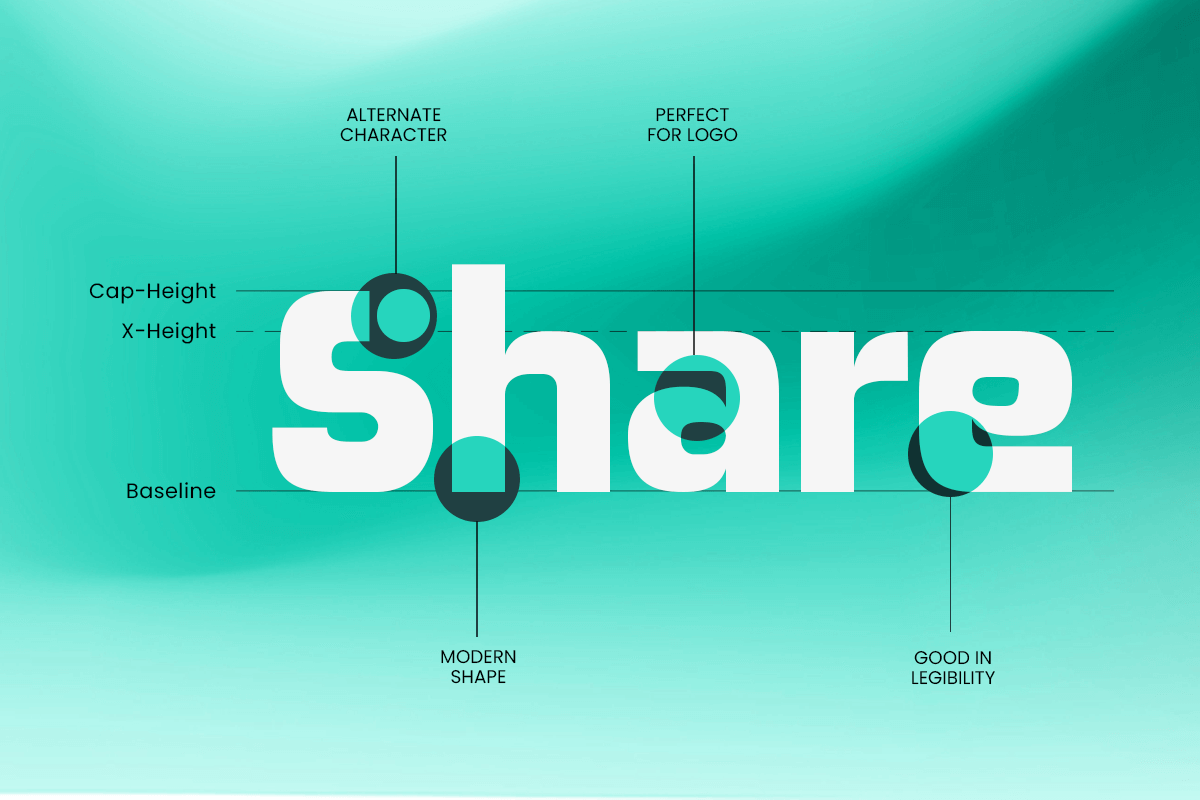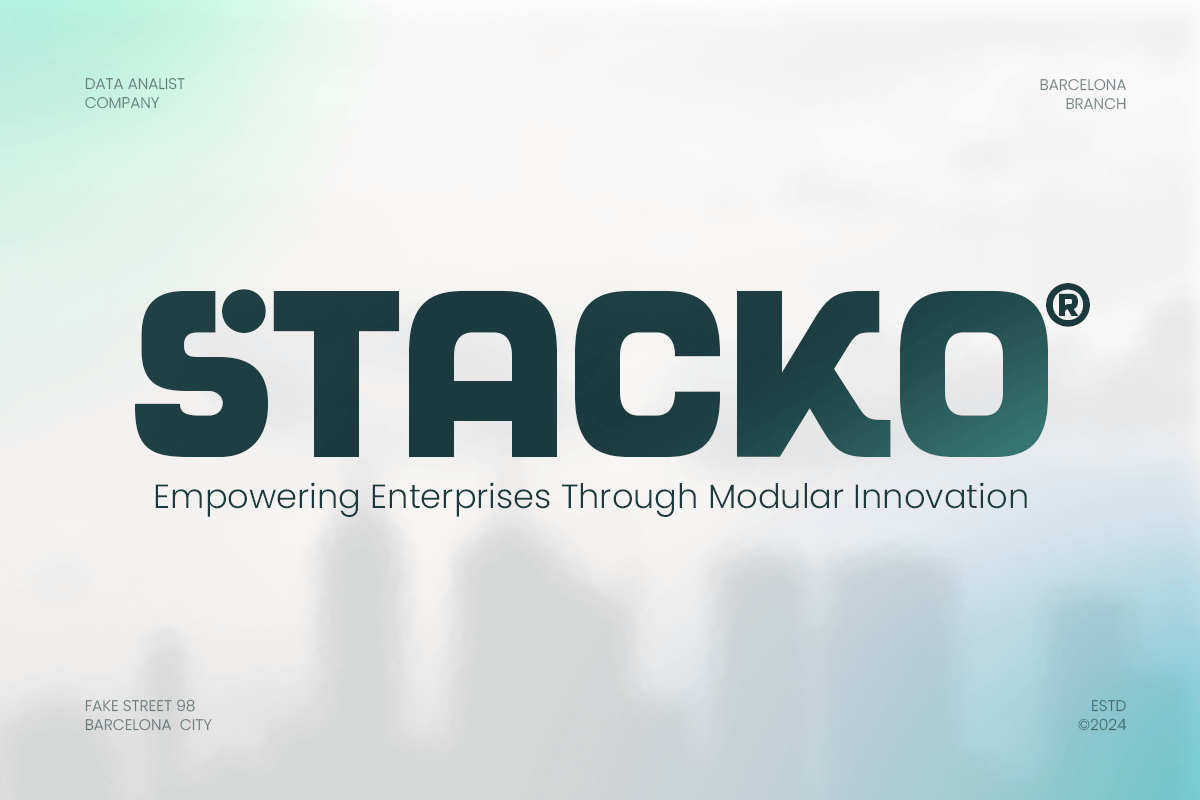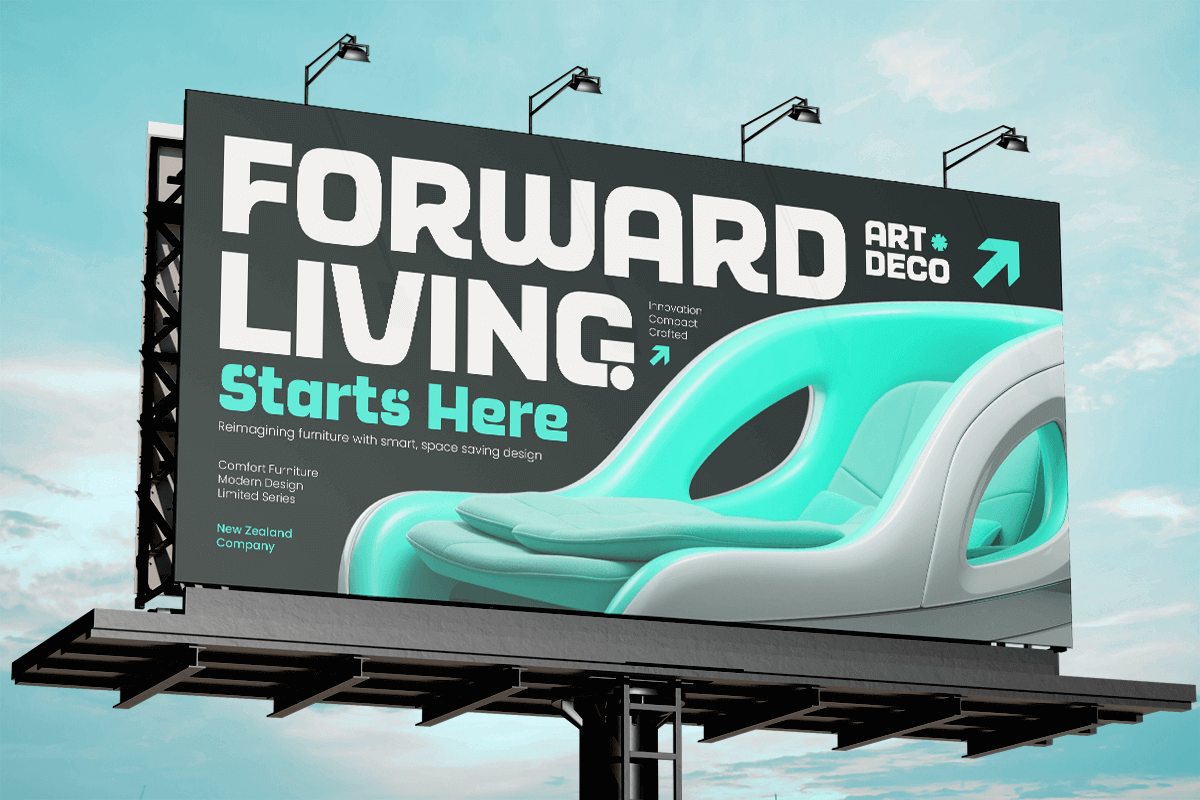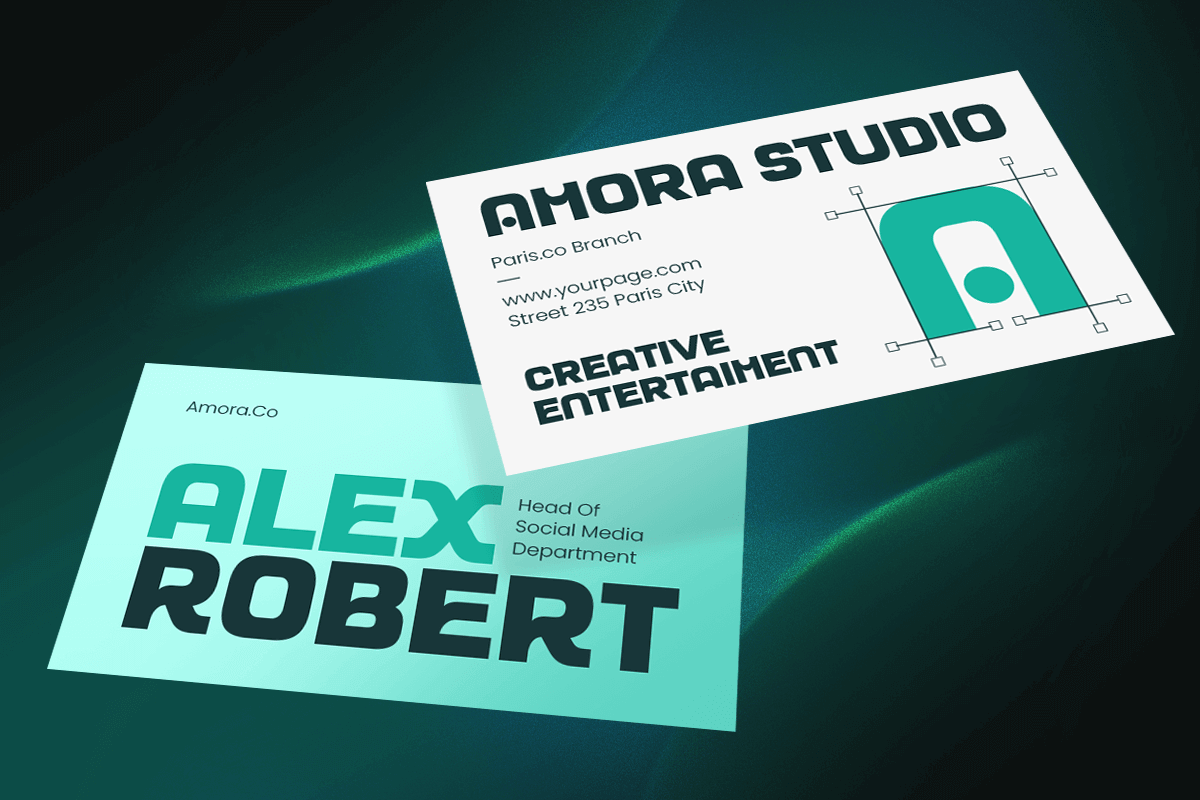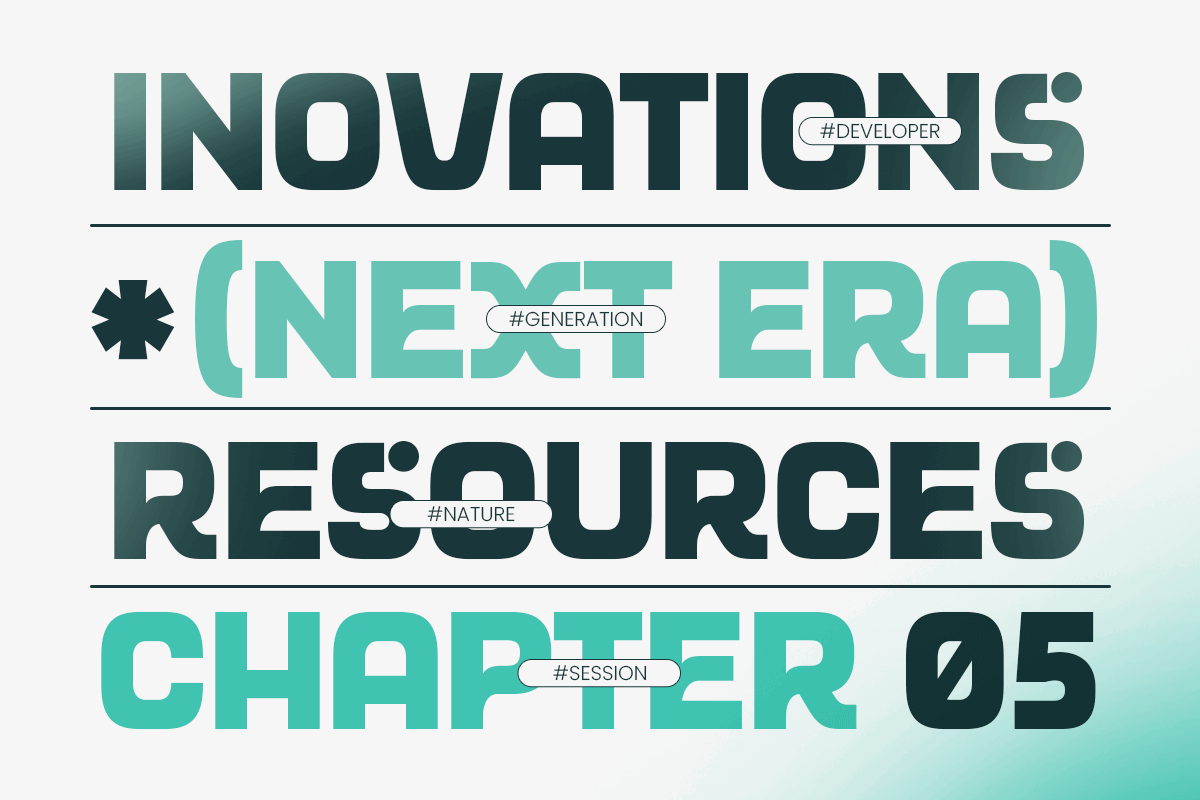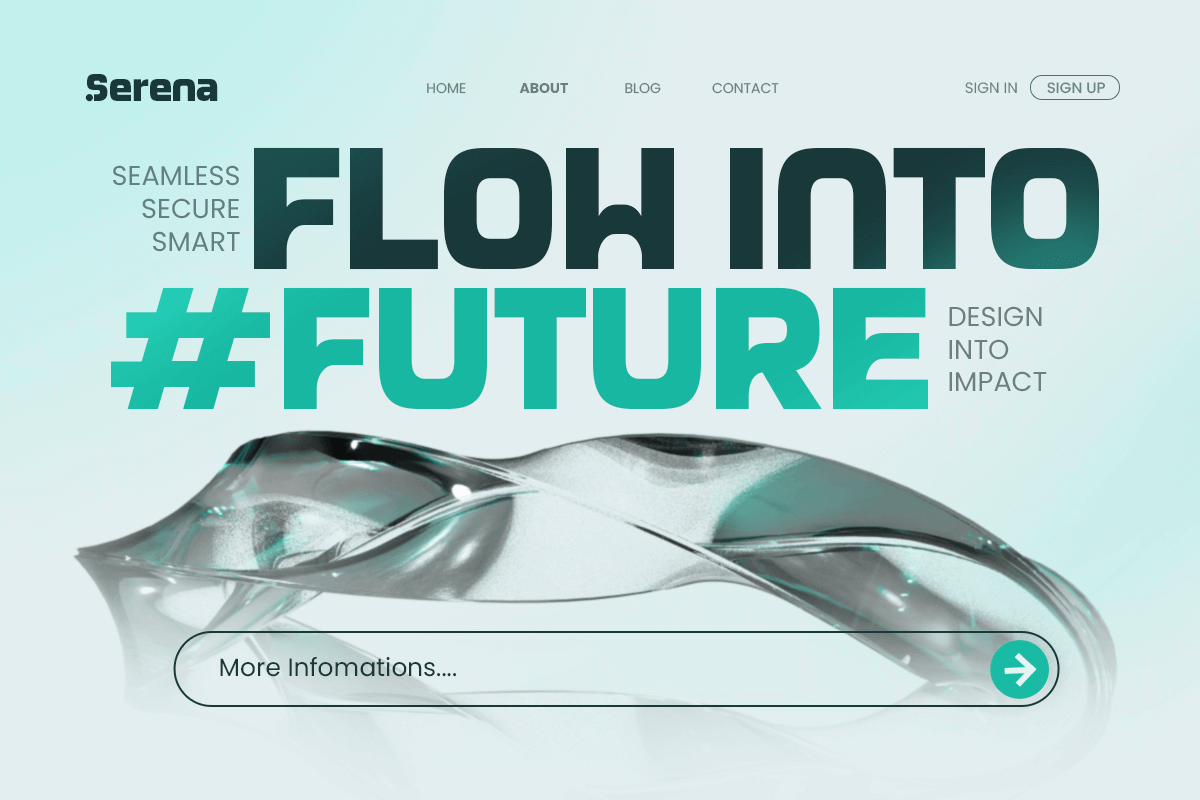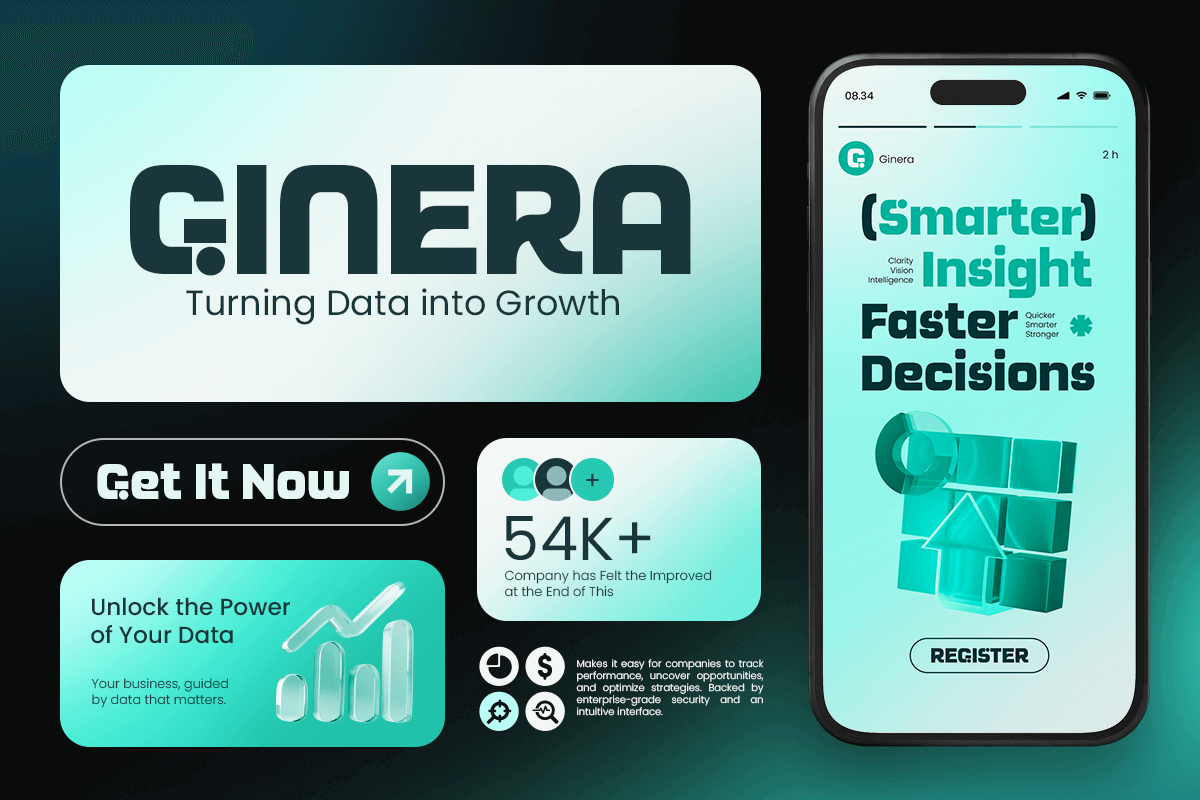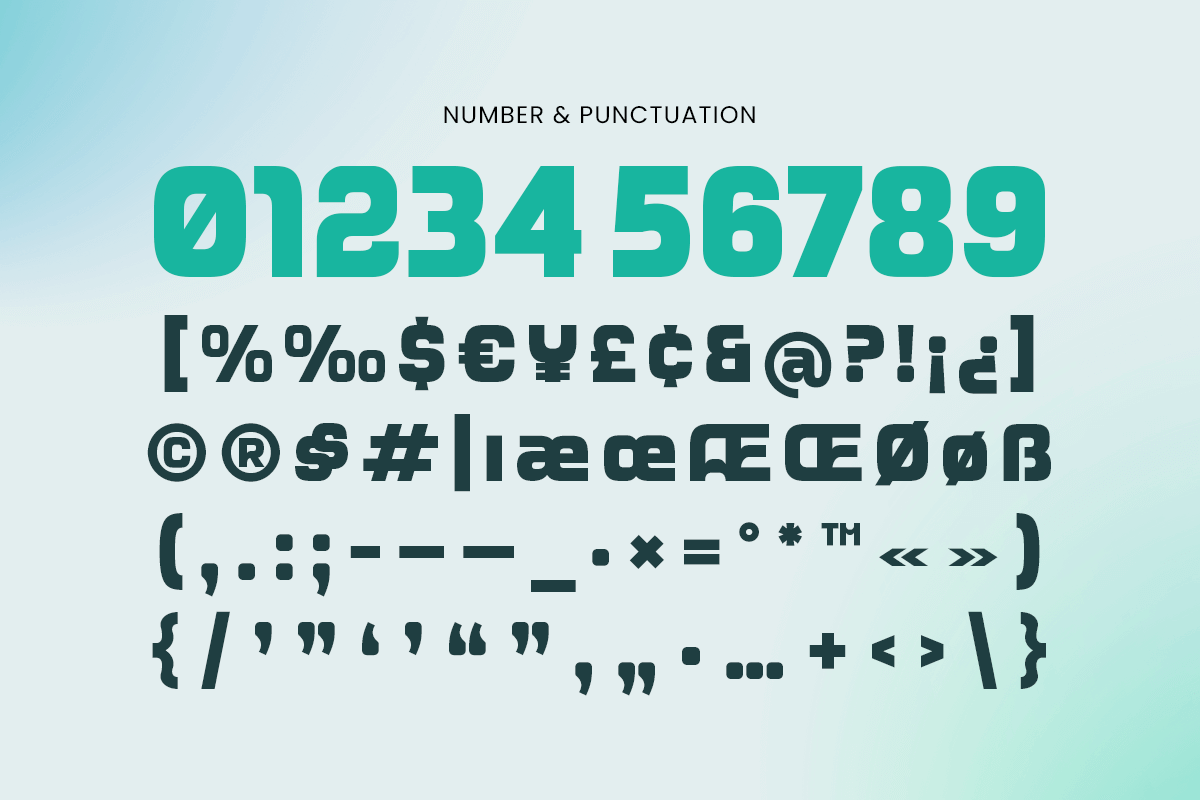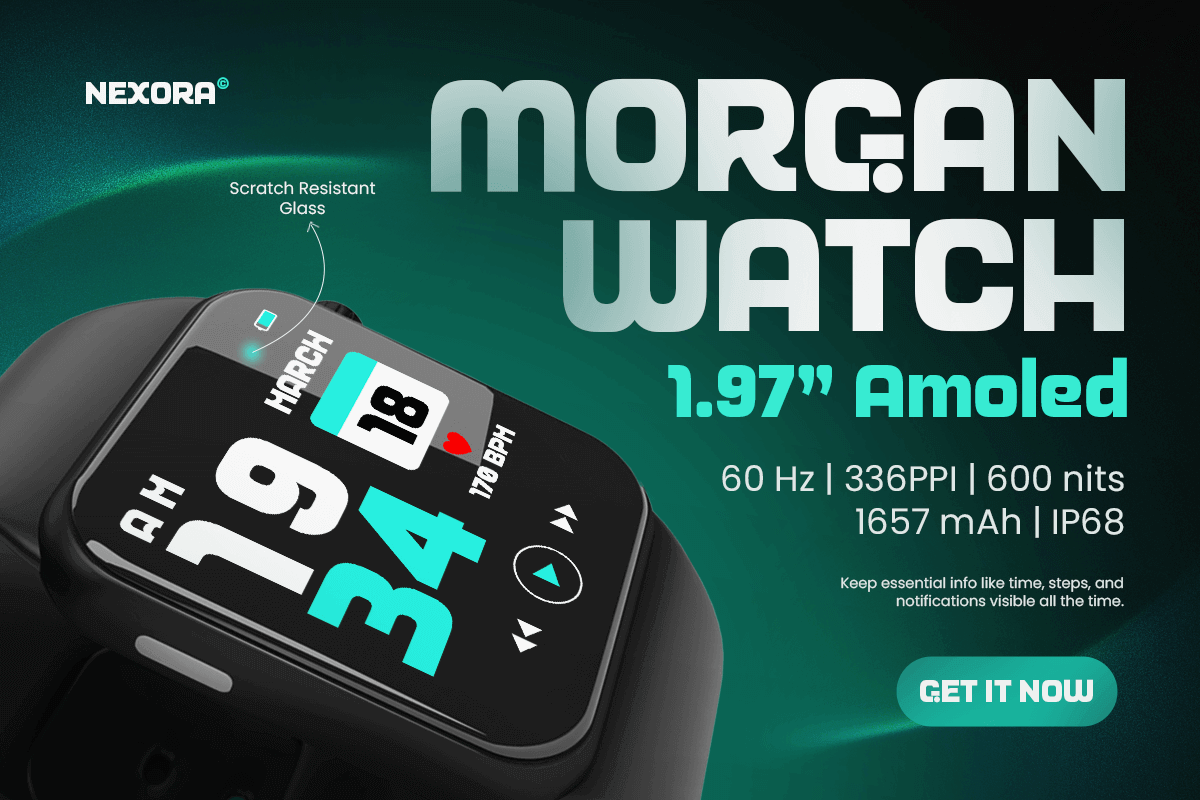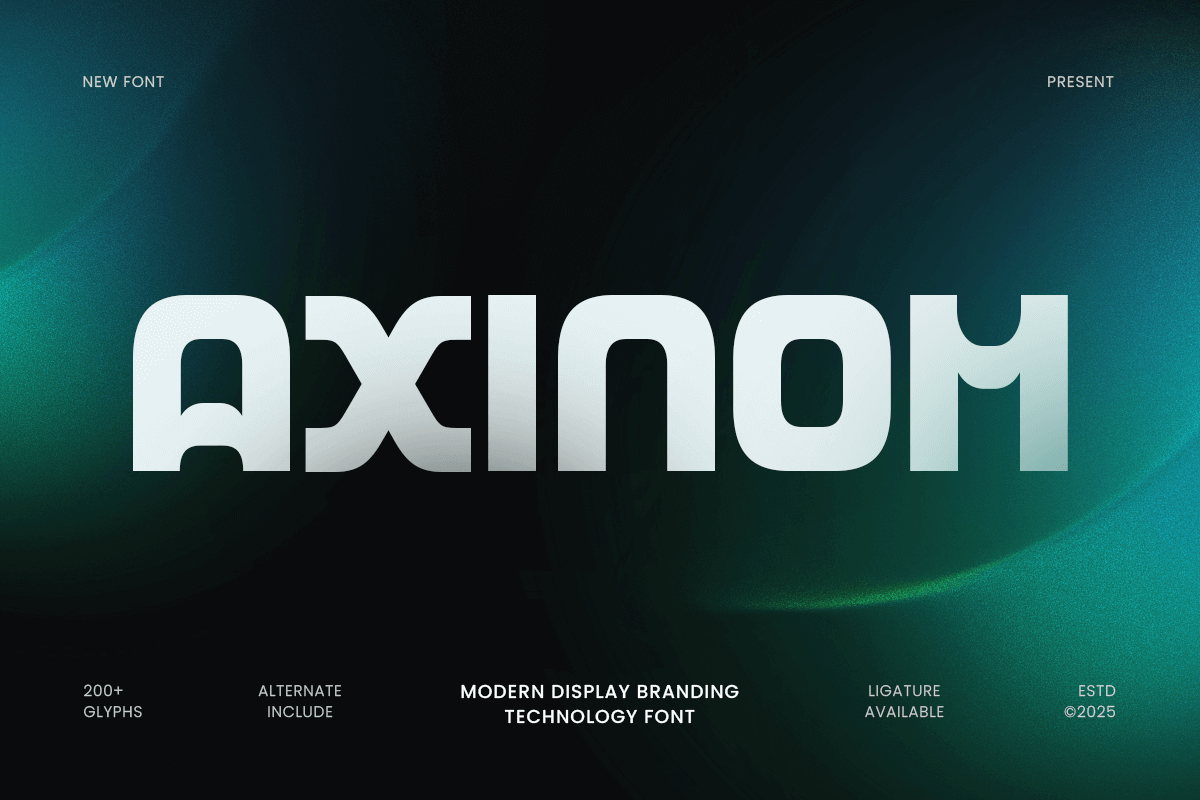
Axinom - Modern Technology Font
Axinom – Modern Display Branding Technology Font
Axinom is a bold and futuristic display font designed to elevate modern technology and branding projects. With its clean geometric forms and innovative structure, Axinom delivers a powerful visual presence that embodies precision, innovation, and digital sophistication.
Perfect for tech startups, software companies, gaming, UI design, and modern product branding, Axinom brings a professional yet creative edge to any layout. Its sleek letterforms and balanced spacing ensure readability while maintaining a distinct technological personality that sets your designs apart.
Axinom – Modern Display Branding Technology Font Features:
\* Futuristic and geometric display design for modern branding
\* Ideal for technology, digital, and innovation-driven projects
\* Includes uppercase, lowercase, numerals, and punctuation
\* Optimized kerning and OpenType features for flexibility
\* Great for logos, posters, packaging, and UI/UX interfaces
Transform your brand identity with Axinom – the modern display font built for innovation, clarity, and visual impact.